15 Best Gothic Fonts for Tattoo Design 2026
As a designer, I appreciate typography that makes a strong visual statement, and gothic lettering remains one of the most iconic gothic styles in tattoo design. This collection of 15 best gothic letter tattoo fonts for 2026 features typefaces I personally use for bold, expressive, and highly detailed creative projects.
From classic blackletter-inspired designs to modern gothic font interpretations, each font was selected for its distinctive character, sharp details, and timeless appeal. These typefaces are perfect for tattoo concepts, custom lettering, apparel graphics, branding, posters, and alternative design aesthetics.
I always look for fonts that combine artistic craftsmanship with strong visual impact, helping create designs that feel authentic, memorable, and full of personality.
Cambridge Gothic Font
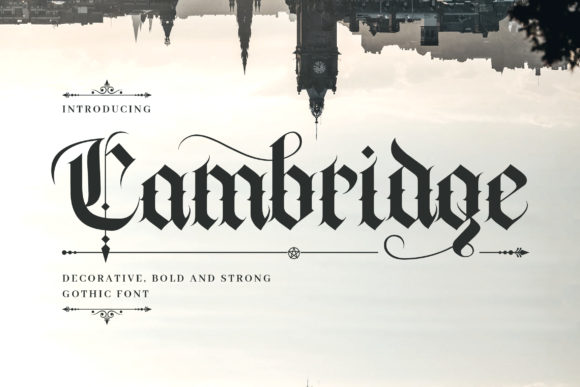
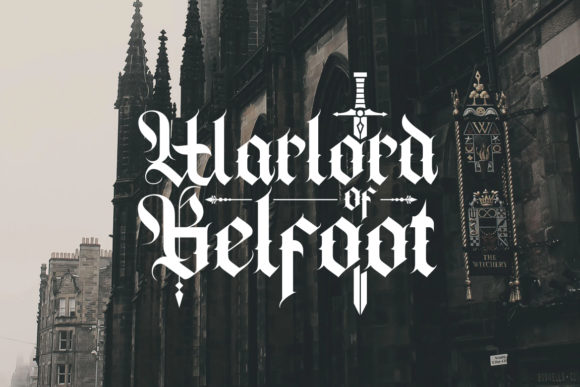
Cambridge is an elegant blackletter font that blends classic gothic inspiration with a bold and sophisticated character. I enjoy using it for logos, branding, book covers, posters, certificates, and editorial designs because its decorative lettering feels timeless and distinctive. The dramatic gothic details and authentic medieval style create a powerful visual impact that makes every project look unique, artistic, and unforgettable.
Loyalty Chicano Gothic Font
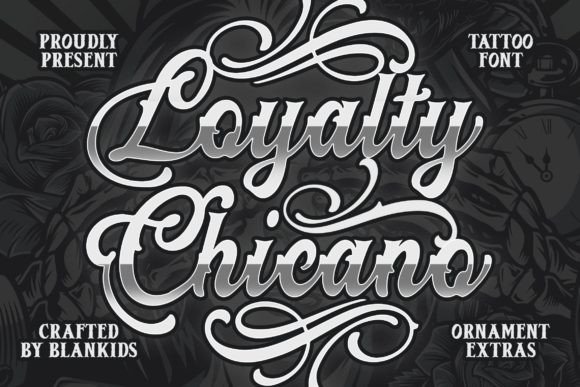
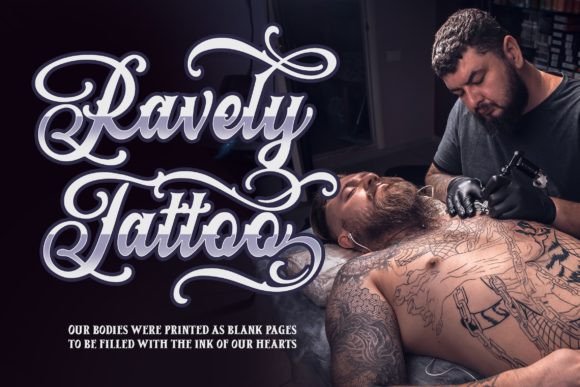
Loyalty Chicano is a bold tattoo-inspired blackletter font that instantly adds attitude and character to any creative project. I love using it for logos, posters, merchandise, packaging, book covers, and streetwear branding because its ornamental lettering feels artistic and powerful. The unique Chicano-style design blends classic tattoo aesthetics with modern creativity, making every project look distinctive, eye-catching, and full of personality.
Tattoo Studio Gothic Font
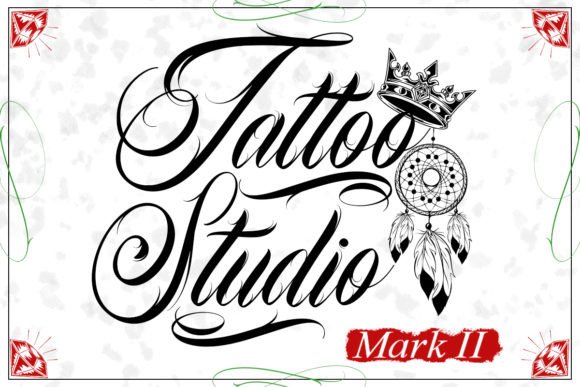
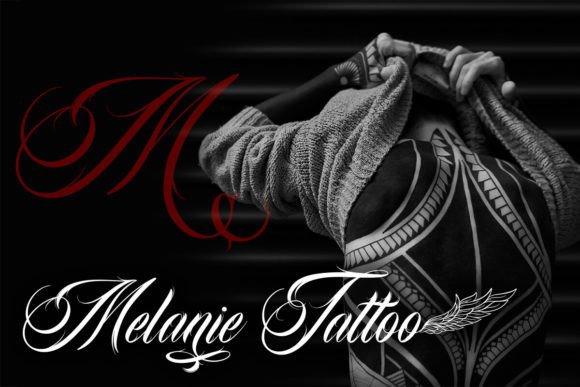
Tattoo Studio is a modern blackletter script font that perfectly captures the bold artistry of tattoo culture. I enjoy using it for tattoo branding, logos, merchandise, posters, album covers, streetwear, and punk-inspired designs because its detailed lettering feels powerful and authentic. The combination of classic blackletter style and contemporary calligraphy creates a striking visual identity that makes every project look edgy, creative, and unforgettable.
Tattoo Gothic Font
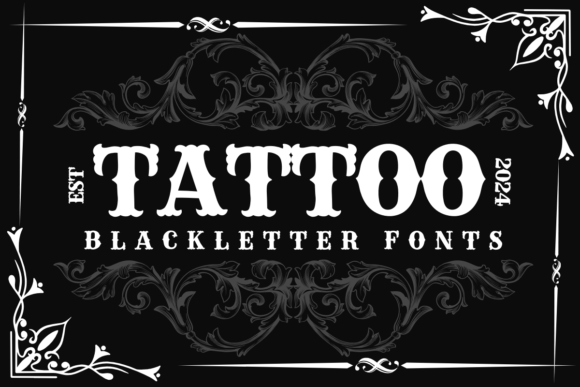
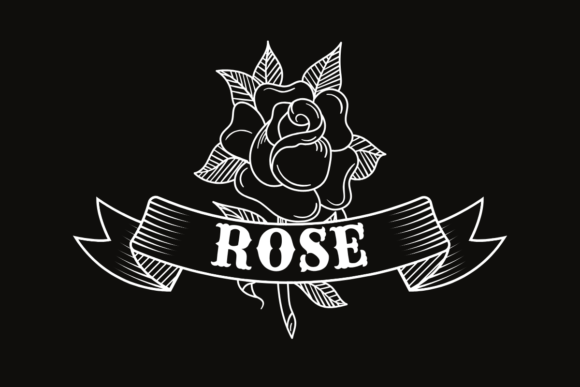
Tattoo is a bold blackletter font that instantly adds strength and personality to any design. I love using it for logos, tattoo-inspired artwork, posters, merchandise, apparel, and branding because its thick lettering creates a powerful visual impact. The classic blackletter style combined with its bold modern presence makes every project look confident, distinctive, and impossible to ignore.
Big Fat Gothic Font
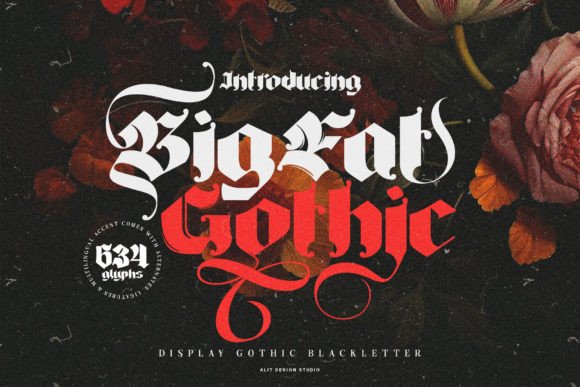
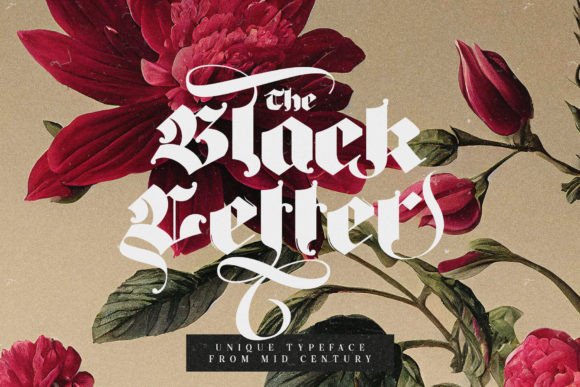
Big Fat Gothic is a bold blackletter font that instantly commands attention with its strong gothic character and dramatic lettering. I love using it for logos, posters, branding, apparel, album covers, and tattoo-inspired designs because its thick strokes create a powerful visual impact. The decorative swashes, ligatures, and vintage blackletter style make every project feel bold, distinctive, and impossible to overlook.
Underdove Gothic Font
Underdove is a striking blackletter font that blends Victorian elegance with bold Gothic craftsmanship. I love using it for branding, packaging, posters, book covers, editorial layouts, and luxury labels because its ornate flourishes and powerful letterforms create a truly distinctive look. Inspired by vintage engravings and classical calligraphy, this sophisticated typeface adds authority, character, and timeless style to every creative project.
Old English Gothic Font
Old English is a classic blackletter font that captures the rich character and elegance of medieval typography. I enjoy using it for historical-themed designs, book covers, certificates, logos, posters, and vintage branding because its traditional lettering feels authentic and timeless. The ornate Gothic details and antique style create a powerful visual presence that makes every project look distinguished, dramatic, and full of historical charm.
Ghosthey Gothic Font
Ghosthey is a beautifully crafted blackletter font that combines intricate detail with a bold Gothic aesthetic. I love using it for logos, posters, album covers, branding, apparel, and tattoo-inspired designs because its decorative lettering feels dramatic and unforgettable. The ornate swashes and classic blackletter style create a powerful visual impact that makes every project look artistic, distinctive, and full of character.
Black Ink Gothic Font
Black Ink is a contemporary blackletter tattoo font that delivers a bold and edgy look for modern creative projects. I enjoy using it for logos, t-shirt designs, posters, flyers, branding, and merchandise because its strong lettering feels both authentic and stylish. The tattoo-inspired blackletter aesthetic adds attitude, personality, and a powerful visual impact that helps every design stand out with confidence.
Ducky Black Gothic Font
Ducky Black is a bold gothic blackletter stencil typeface that blends timeless medieval elegance with a rugged industrial edge. Meticulously crafted with sharp angles, dramatic strokes, and stencil-inspired cutouts, it delivers a powerful vintage aesthetic. Perfect for branding, tattoos, packaging, posters, signage, apparel, and streetwear design, Ducky Black adds depth, character, and authenticity to any creative project seeking a strong historic and modern fusion style.